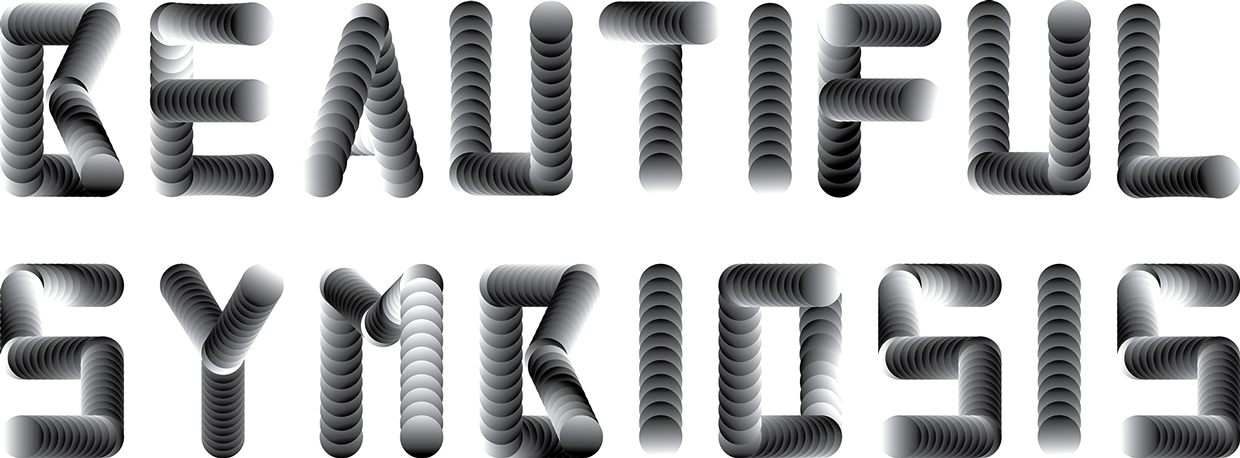
Dasol Jung
At California Institute of the Arts, Santa Clarita, CA-based Dasol Jung designed Cropcircle (2015) and the experimental 3d typeface Symbiosis (2015). In 2016, she designed the Asian look eyelash-inspired typeface Wishlash. Behance link.